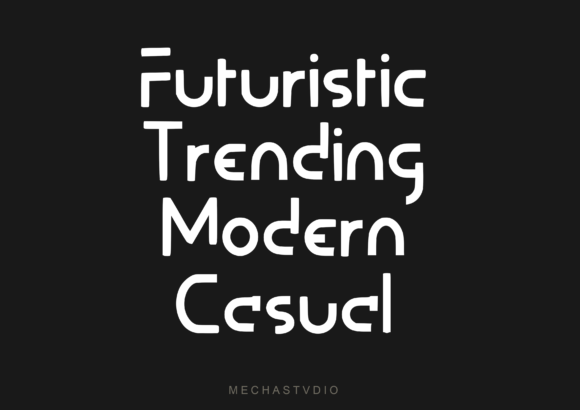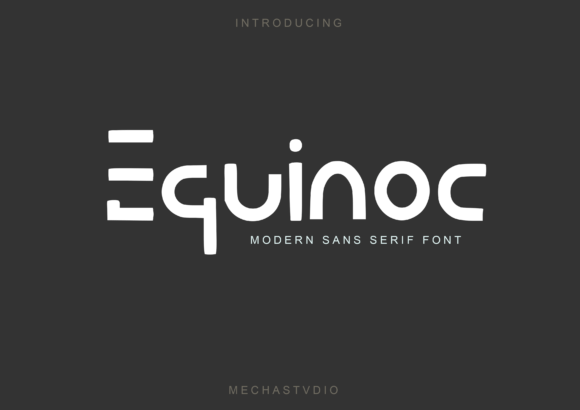
Introducing Equinoc Font: The Modern, Simple, and Bold Sans Serif Game-Changer
In the world of typography, fonts play a crucial role in making or breaking a design. A well-chosen font can elevate a project from ordinary to extraordinary, while a poorly chosen one can have the opposite effect. For designers and crafters looking for a font that can add a touch of modernity and sophistication to their work, look no further than Equinoc Font. In this article, we’ll explore the features and benefits of Equinoc, and why it’s the perfect choice for your next project.
What is Equinoc Font?
Equinoc is a modern, simple, and bold sans serif font that has been designed to make a statement. Its clean lines, geometric shapes, and minimalist aesthetic make it perfect for a wide range of applications, from branding and advertising to packaging and digital media. What sets Equinoc apart from other fonts is its unique style, which is both elegant and edgy at the same time.
Key Features of Equinoc Font
So, what makes Equinoc Font so special? Here are some of its key features:
- Modern and Simple: Equinoc’s design is inspired by modern typography, with a focus on simplicity and clean lines. This makes it perfect for designers who want to create a contemporary look and feel.
- Bold and Eye-Catching: Despite its simplicity, Equinoc is a bold font that demands attention. Its geometric shapes and carefully crafted letterforms make it perfect for headlines, titles, and other applications where you want to make a statement.
- Sans Serif: As a sans serif font, Equinoc is perfect for digital media, where serif fonts can often appear blurry or pixelated.
- Versatile: Equinoc is a versatile font that can be used in a wide range of applications, from print to digital media.
Why Choose Equinoc Font?
So, why should you choose Equinoc Font for your next project? Here are just a few reasons:
- Unique Style: Equinoc’s unique style sets it apart from other fonts, making it perfect for designers who want to create something truly original.
- Transforms Your Projects: With Equinoc, you can transform your projects into true standouts, grabbing the attention of your audience and setting your work apart from the competition.
In conclusion, Equinoc Font is a modern, simple, and bold sans serif font that is perfect for designers and crafters looking to add a touch of sophistication and elegance to their work. With its unique style, ease of use, and versatility, Equinoc is the perfect choice for a wide range of applications. Whether you’re working on a branding project, creating a website, or designing a piece of packaging, Equinoc is the perfect font to help you make a statement.